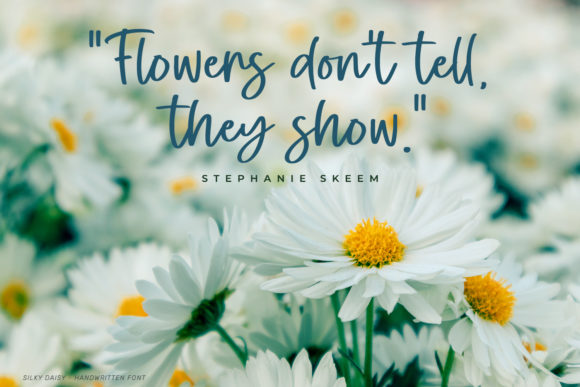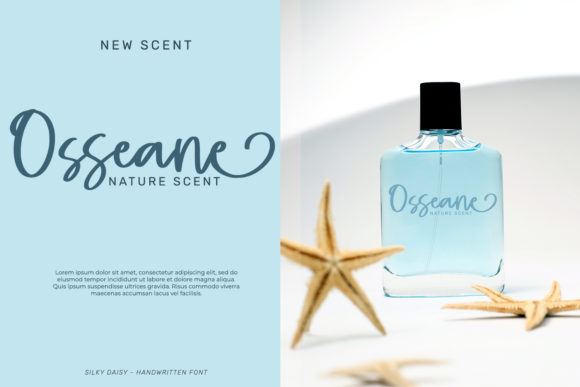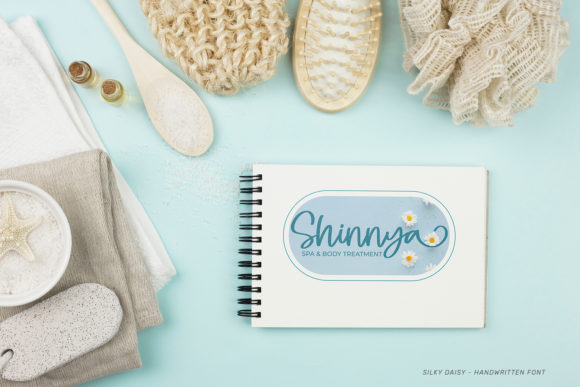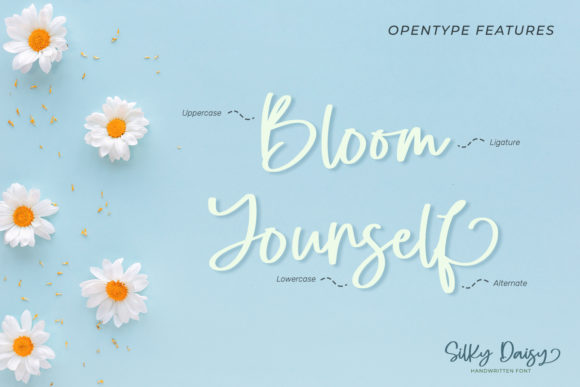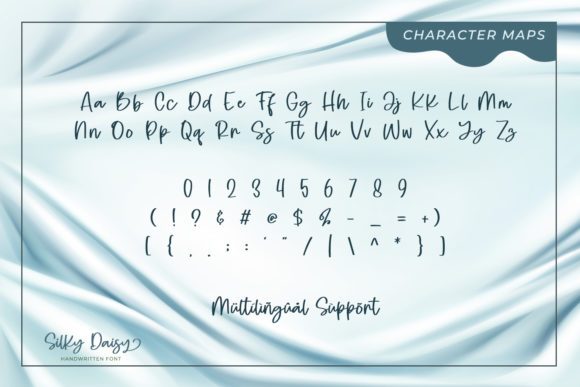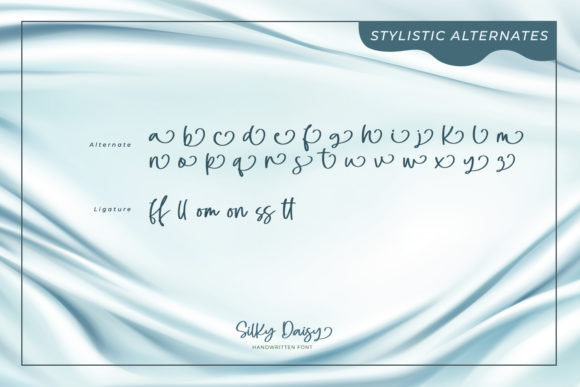
Introduction to Silky Daisy Font
Have you ever found yourself in a creative frenzy, frantically searching for the perfect font to bring your design project to life? It’s that moment of serendipity, when you stumble upon a font that makes your vision sparkle. For designers, discovering a high-quality font that perfectly complements their creative project can be a game-changer. One such font that has been gaining popularity among designers is the Silky Daisy Font, a delicate and cute handwritten font that exudes natural elegance.
Characterized by its transparent background and whimsical flair, the Silky Daisy Font is an excellent design resource for both formal and informal designs. Its versatility makes it an ideal choice for a wide range of creative projects, from branding and marketing materials to digital graphics and social media posts.
Key Features of Silky Daisy Font
- High-quality design: Silky Daisy Font offers a premium look and feel, making it a great choice for creative projects.
- Unique characteristics: The font features a delicate, hand-drawn look with intricate details, making it ideal for creative projects that require a touch of elegance.
- Design resource: Silky Daisy Font is a valuable resource for designers, artists, and crafters, offering a versatile and high-quality design element for various creative projects.
Honest Review: Silky Daisy Font
I recently had the chance to work with the Silky Daisy Font, and I must say it’s been a game-changer for my design projects. This high-quality font is perfect for any creative project that requires a touch of elegance and sophistication.
What works well is the transparent background, making it easy to place the font on any image or background without worrying about any unnecessary lines or shapes. This feature is especially useful for designers who want to create a seamless design experience.
- High-quality design: The Silky Daisy Font is crafted with precision and attention to detail, ensuring that it looks great in any size or format.
However, I did encounter some limitations with the font. It’s not as versatile as some other fonts, and it may not be the best choice for projects that require a more modern or edgy look.
Overall, I’m impressed with the Silky Daisy Font and would definitely recommend it to designers looking for a high-quality, elegant font for their creative projects. While it may have some limitations, it’s a solid addition to any design resource.
Tips for Getting the Most Out of Silky Daisy Font
For the best results, use the Silky Daisy Font on a high quality transparent background. This will allow the delicate design to shine through. You can also use it in creative projects such as wedding invitations, baby shower decorations, or any other design that requires a touch of elegance.
The Silky Daisy Font is commonly used in:
- Wedding invitations and decorations
- Baby shower invitations and decorations
- Stationery and greeting cards